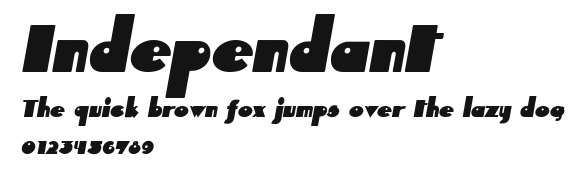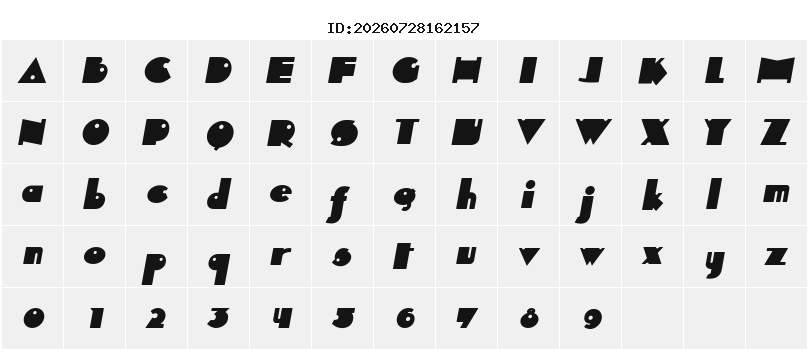
• Font Name: Independant
• Full Font Name: Independant Italic
• Copyright: © Phynette & Apostrophic Laboratories. All rights reserved. Revived from early 1930s European signage type made by Collette & Dufour for Maison de Plantin in Belgium.
• Description: © Phynette & Apostrophic Laboratories. All rights reserved. Revived from early 1930s European signage type made by Collette & Dufour for Maison de Plantin in Belgium.
About Independant.ttf
Independant.ttf is a modern, elegant sans-serif font designed for ultimate readability and visual harmony. Perfect for branding, headlines, web design, and print materials.